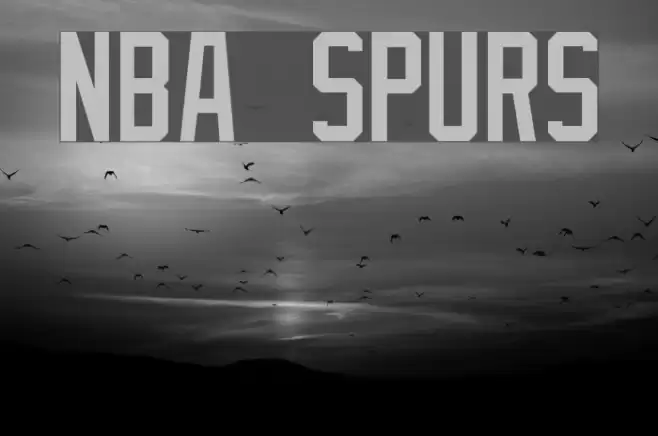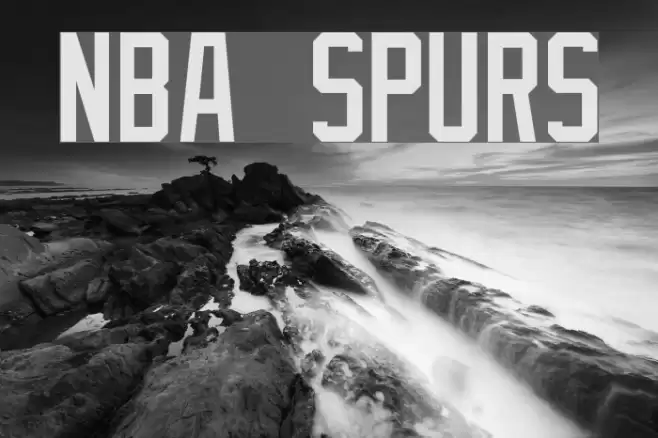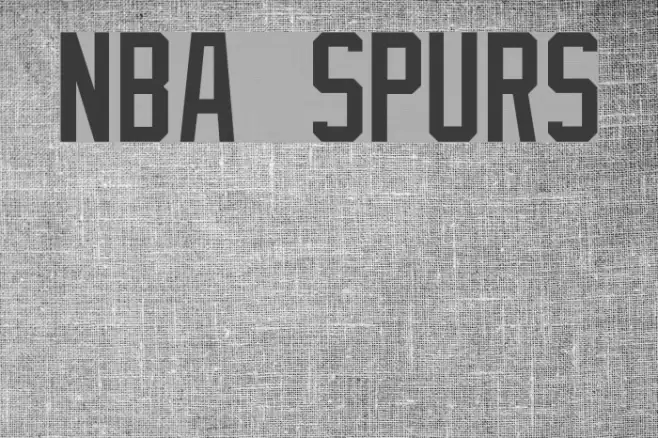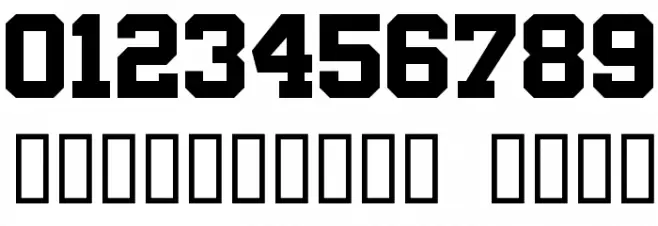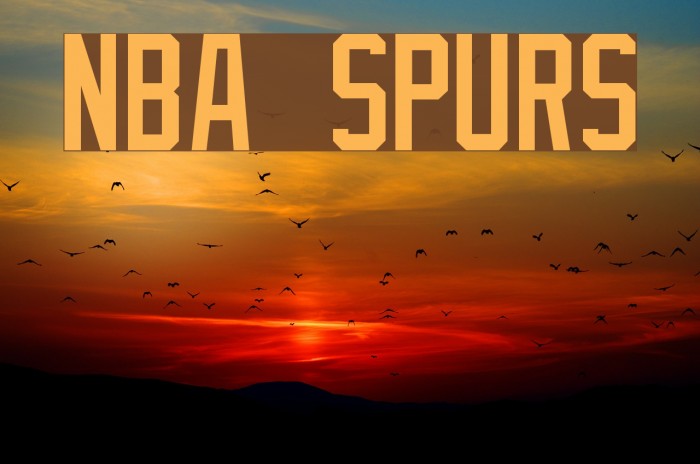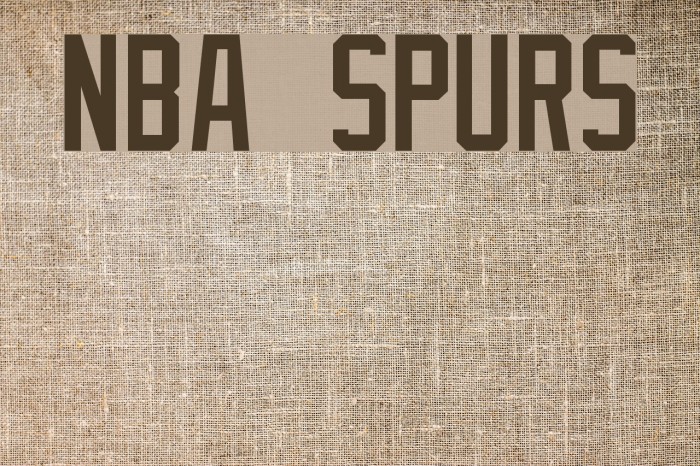
NBA Spurs Font
NBA Spurs Description
This font features a bold and robust design with a strong geometric structure. The characters are blocky and angular, giving it a powerful and commanding presence. The uppercase letters are particularly striking, with sharp edges and a uniform height that conveys strength and stability. The numbers follow the same bold style, making them highly legible and impactful. This font is ideal for projects that require a strong visual impact, such as sports branding or team merchandise. The overall style is modern and assertive, making it suitable for dynamic and energetic designs.
A bold, geometric font with a strong and commanding presence from Uncategorized fonts.
- Proposed Projects: Ideal for sports branding, team merchandise, posters, and headlines.